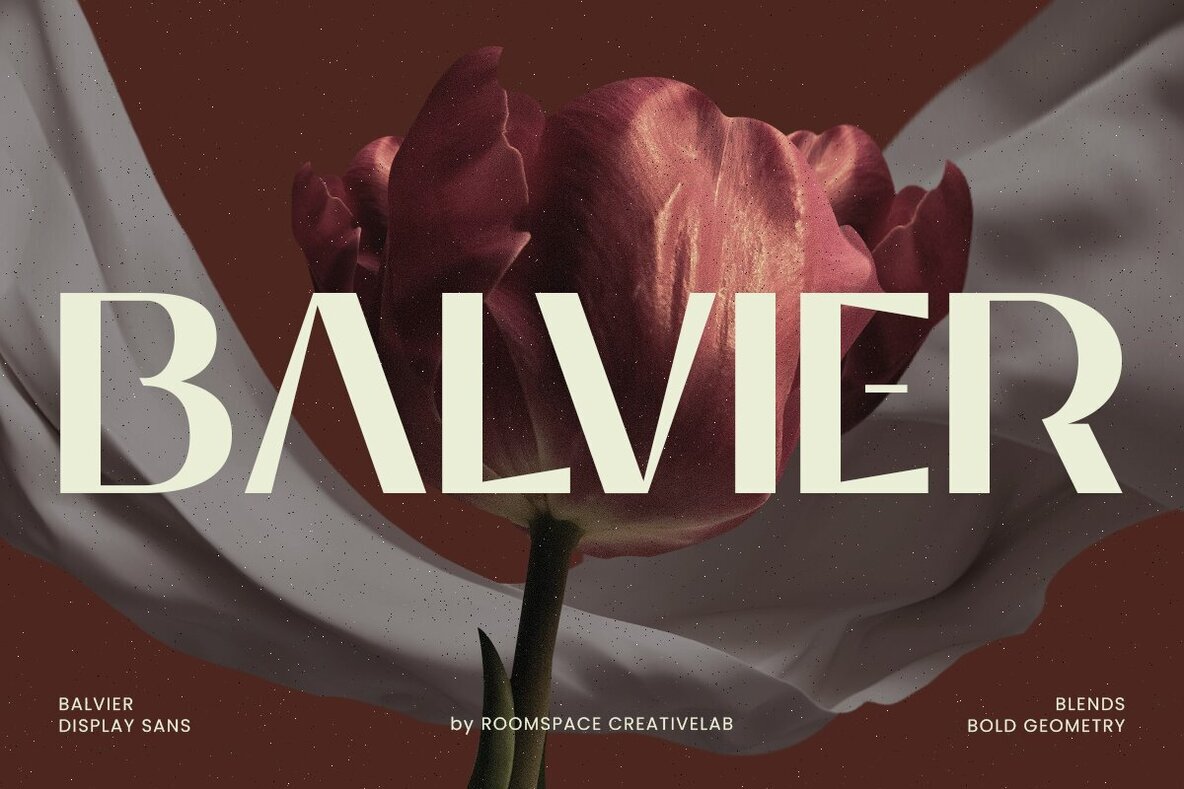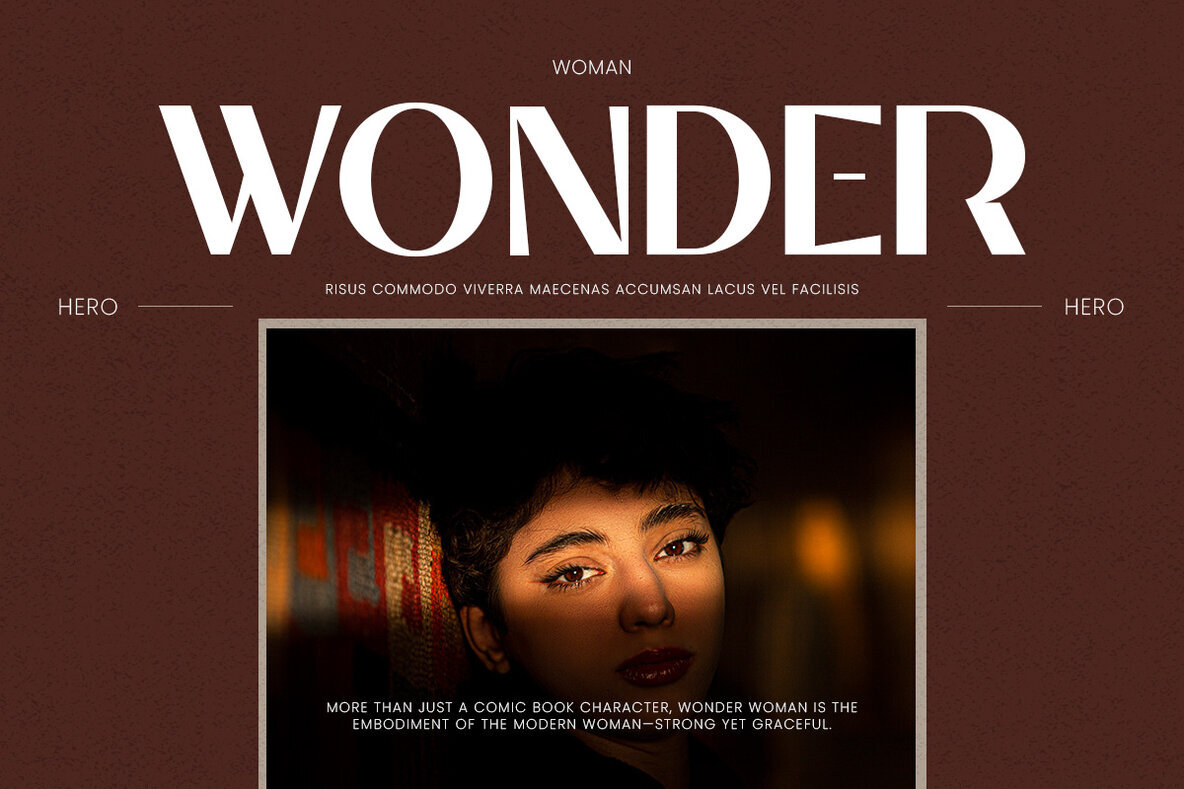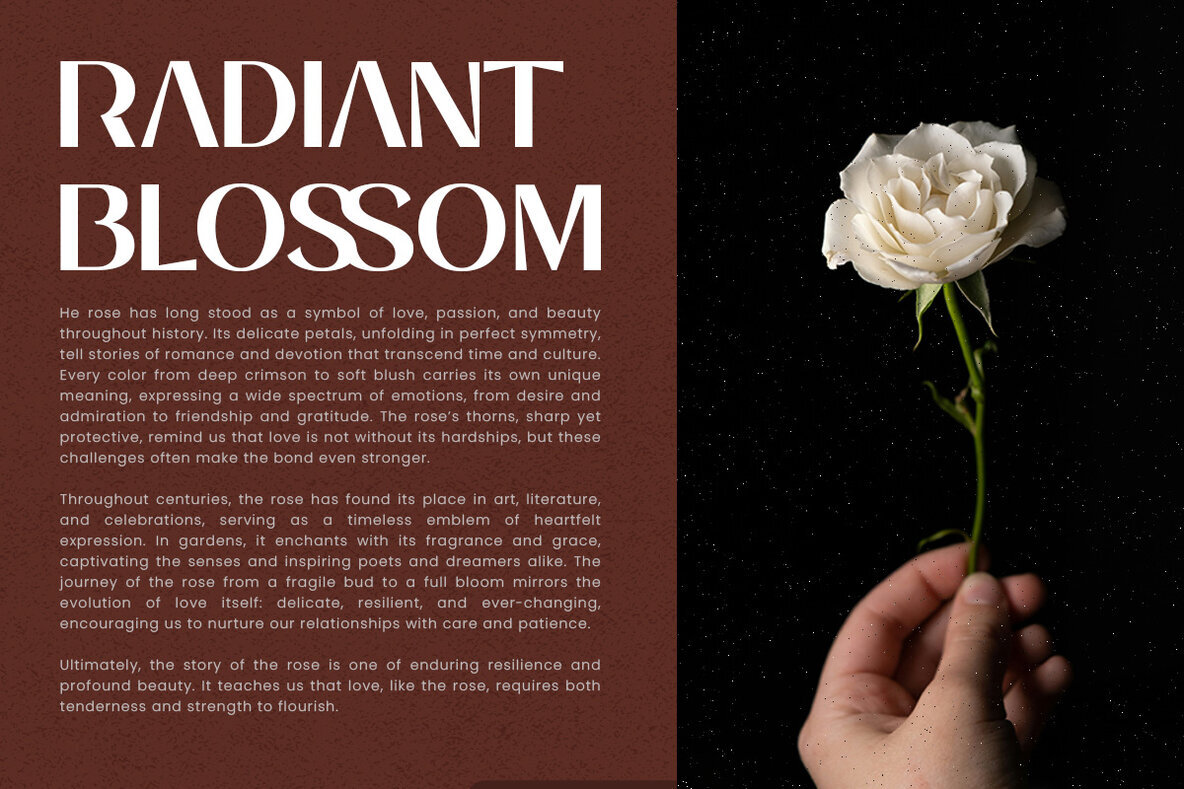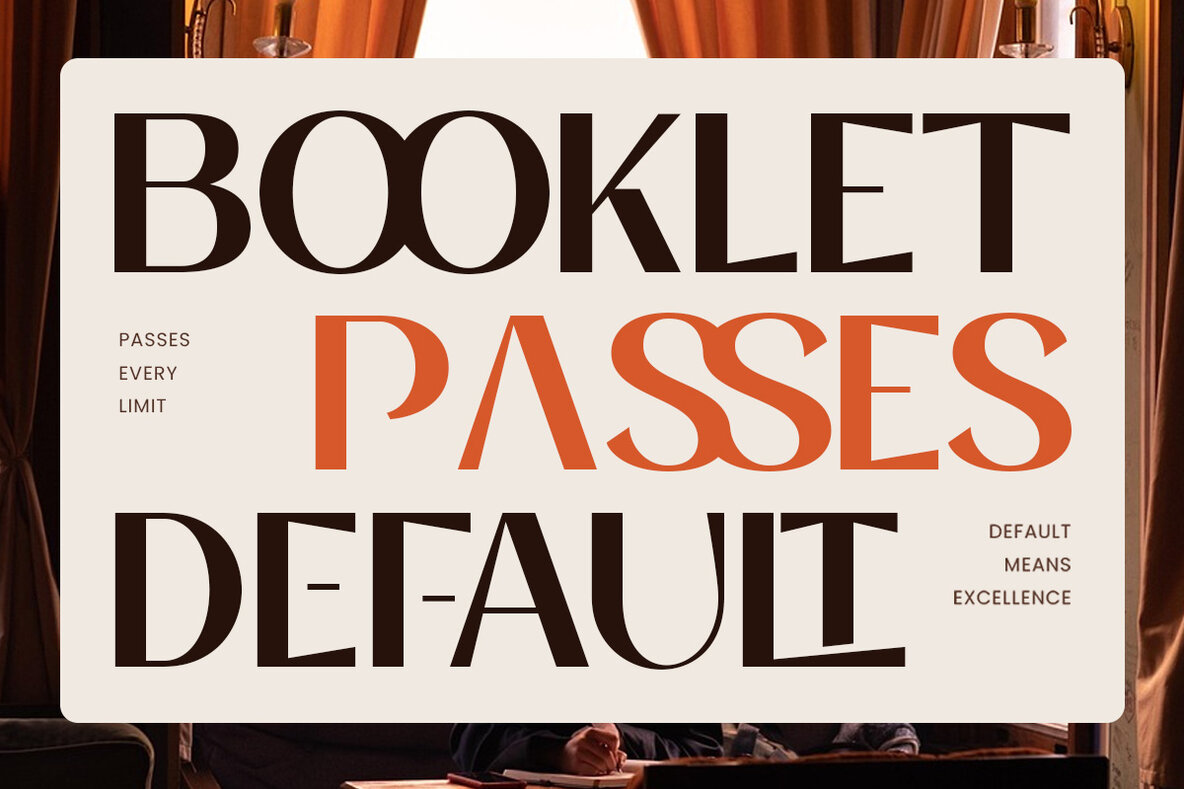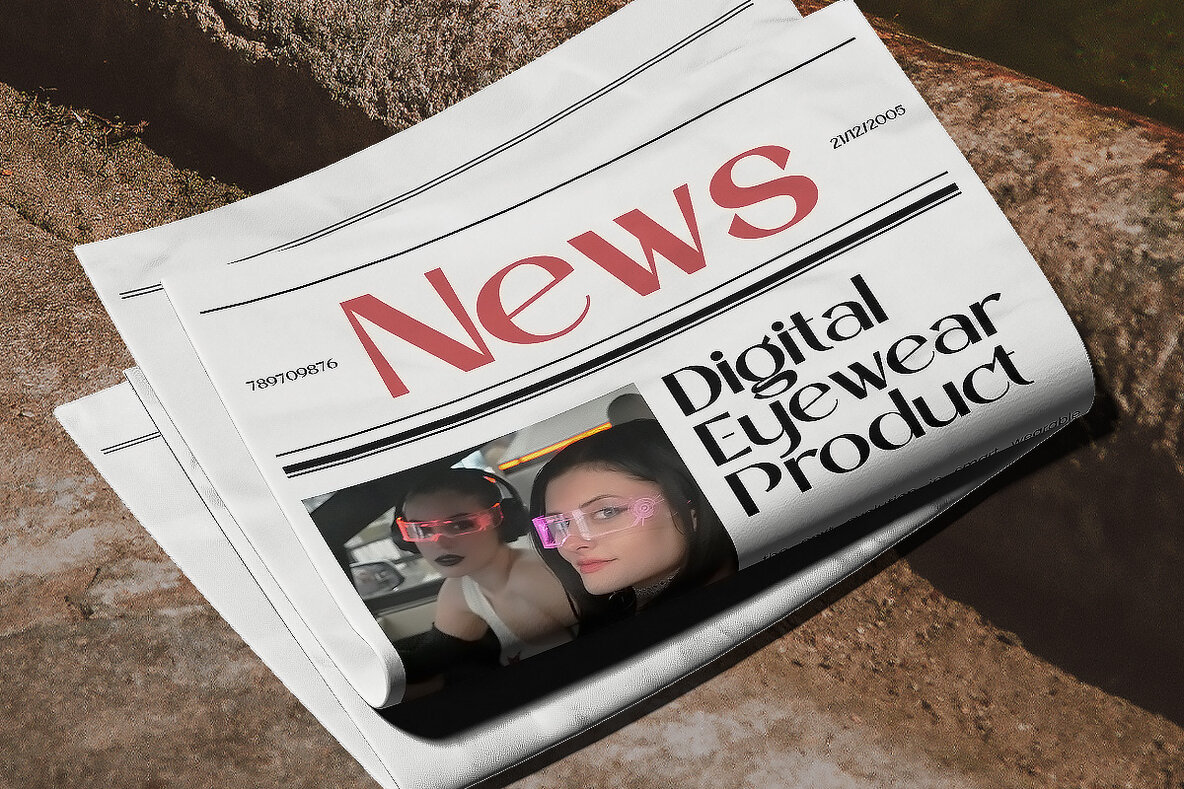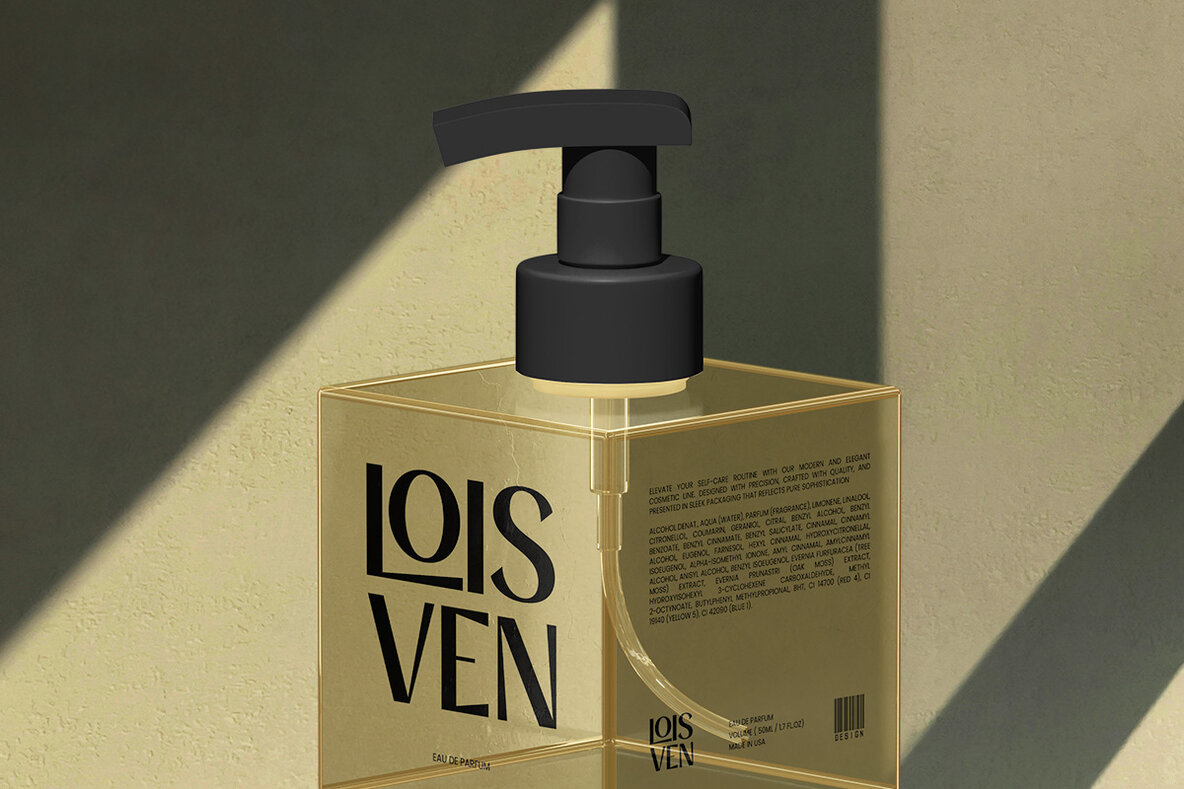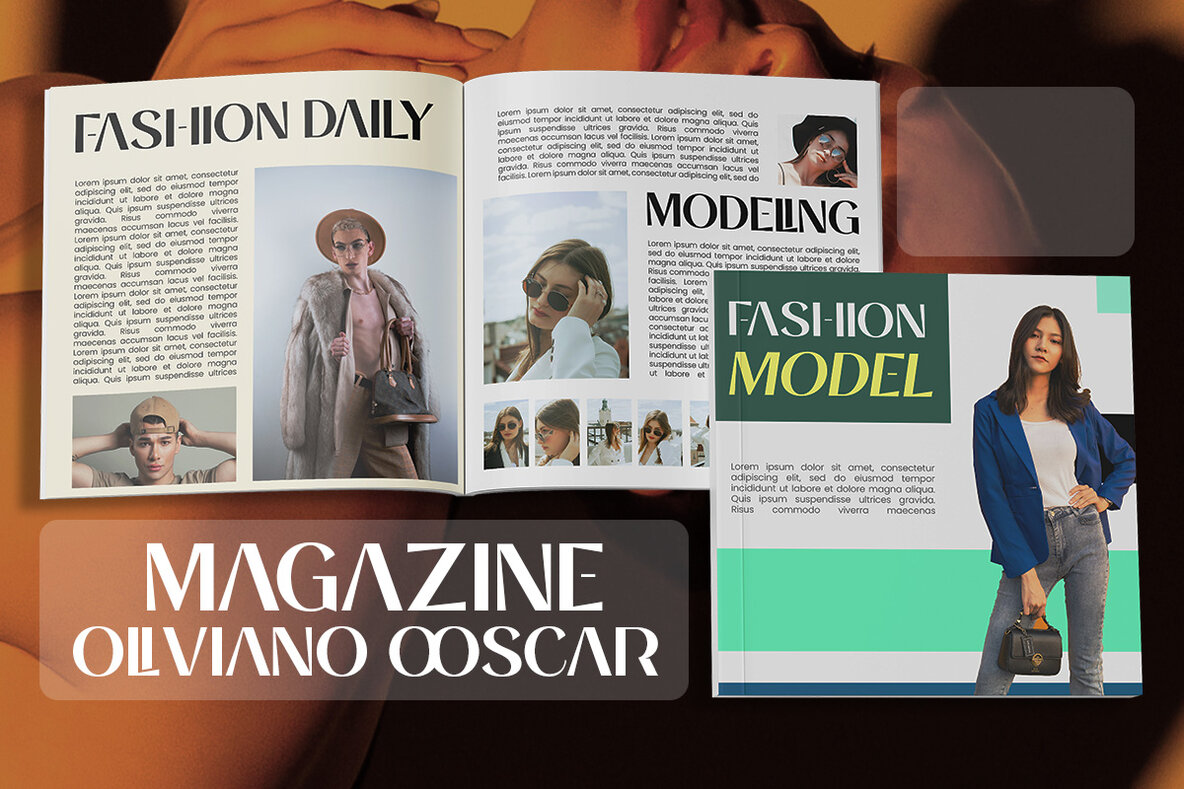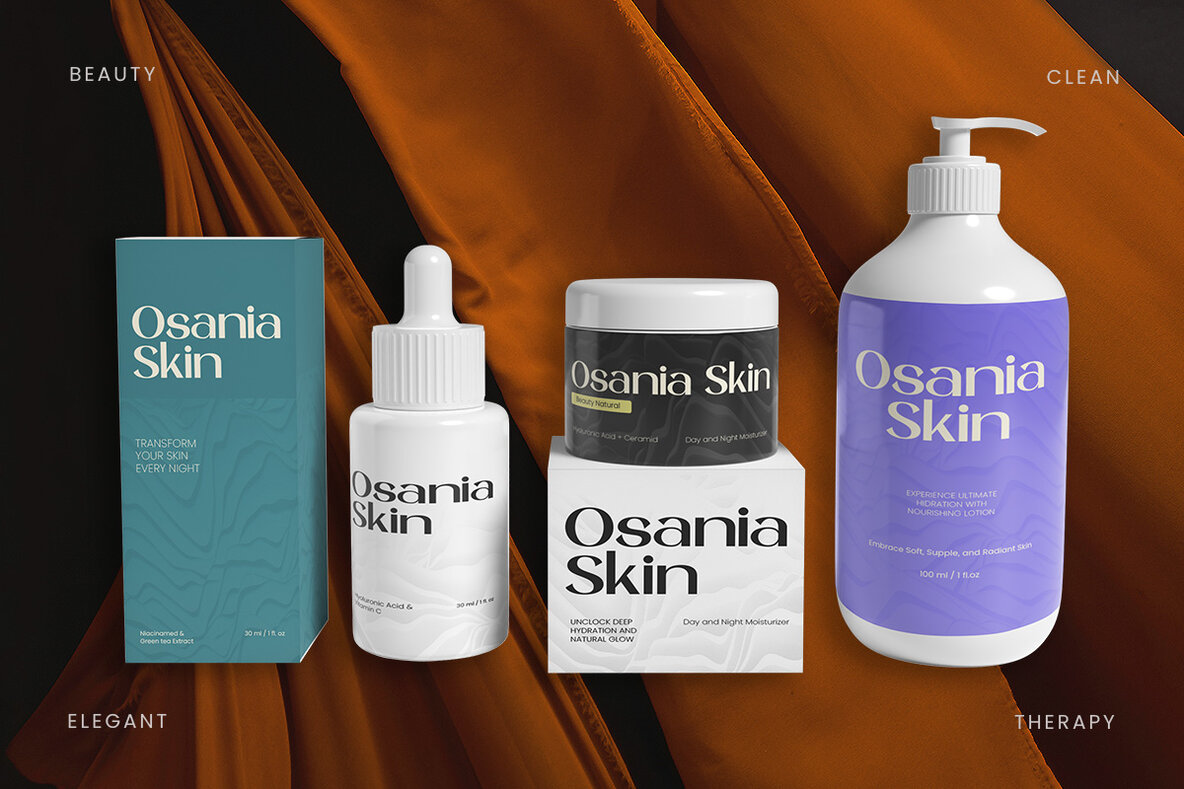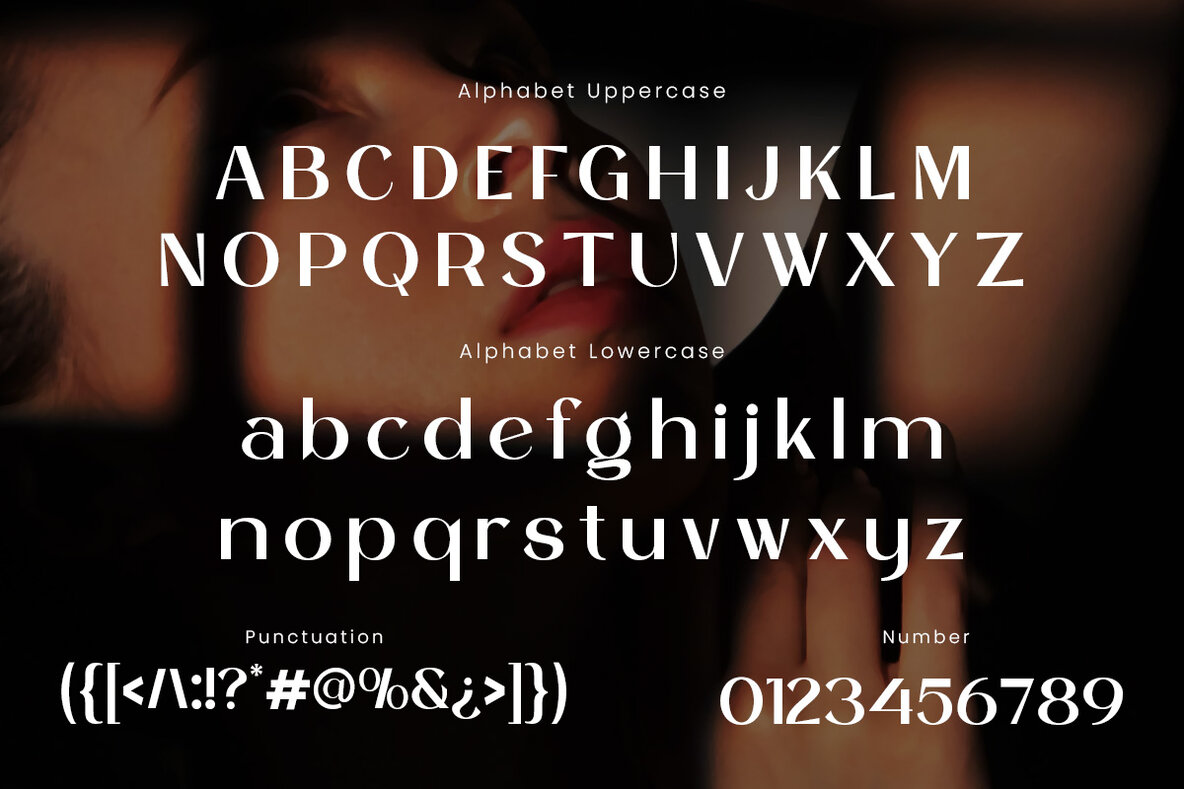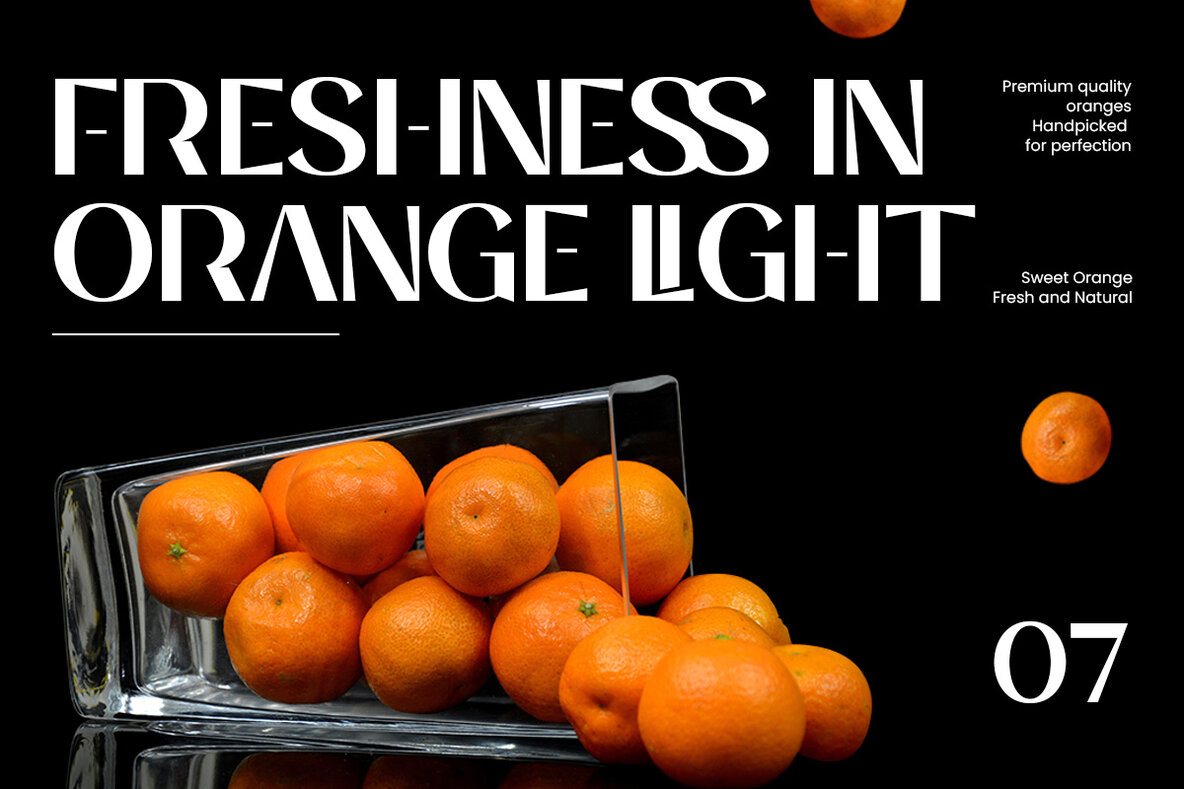
Balvier Font
Balvier is a contemporary display sans serif typeface, expertly merging bold geometry with a luxury aesthetic. Perfect for making a statement, this font exudes a sleek and sophisticated vibe, adding an instant touch of elegance to any project. With its strong lines and timeless allure, Balvier is ideal for brands eager to exude confidence and distinction. Meticulously crafted for precision, Balvier boasts smooth kerning and balanced proportions, ensuring a seamless typographic flow. The bold and structured letterforms are both versatile and unique, making it a dependable choice for diverse applications, from digital to print. Whether you're designing attention-grabbing headlines, logos, or brand elements, Balvier provides clarity and maintains a stylish edge.Balvier Display Sans Serif Font